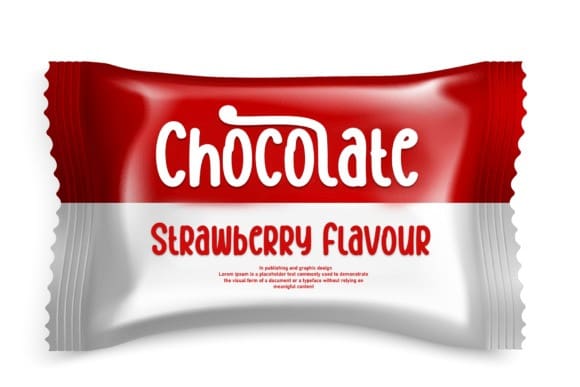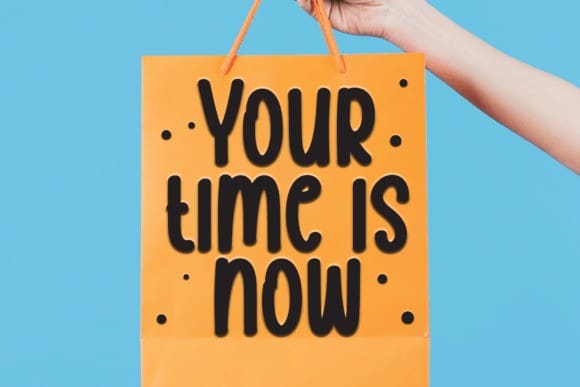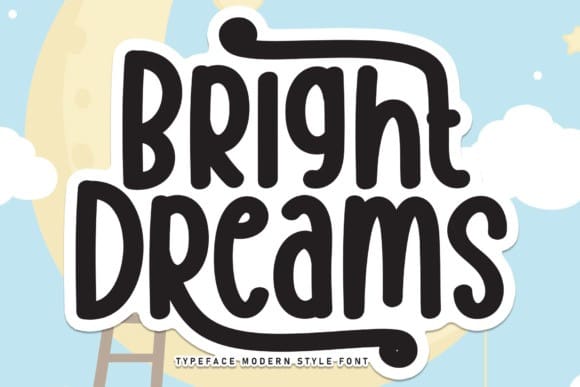
Bright Dreams Font
Bright Dreams Font is a romantic and sweet calligraphy typeface with characters that dance along the baseline. It has a casual, yet elegant touch.